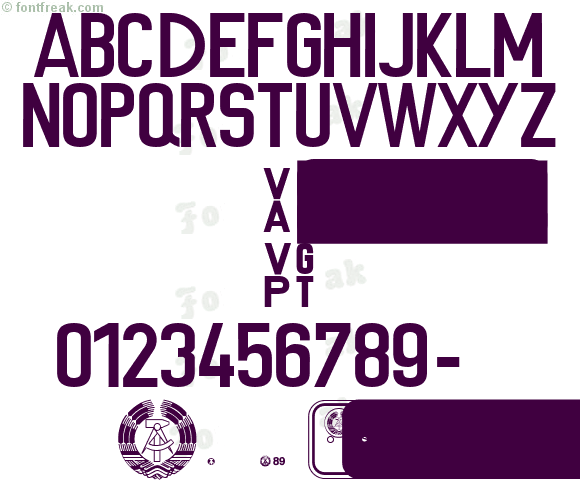
BP12-22
BP12-22, designed by Peter Wiegel, is a modern sans-serif font that embodies a clean and minimalist aesthetic. Its geometric shapes and uniform stroke weight contribute to a contemporary look that is both versatile and appealing. The typeface exhibits a subtle contrast in its letterforms, providing a sense of clarity while maintaining a friendly demeanor. The spacing is well-balanced, ensuring readability across various applications, making it an excellent choice for both digital and print mediums.
This font is ideal for a variety of use cases. For instance, BP12-22 works beautifully in branding materials, where a sleek and modern appearance is desired. It is also well-suited for website headings, as its legibility at different screen sizes ensures that users can easily engage with the content. Additionally, the font can enhance promotional materials, such as flyers and posters, by providing a clean backdrop for bold imagery and messaging. Small business owners will find it particularly useful for crafting eye-catching restaurant menus that convey a modern dining experience. Graphic designers may also appreciate its utility in creating stylish invitations for events, where a contemporary touch is essential.